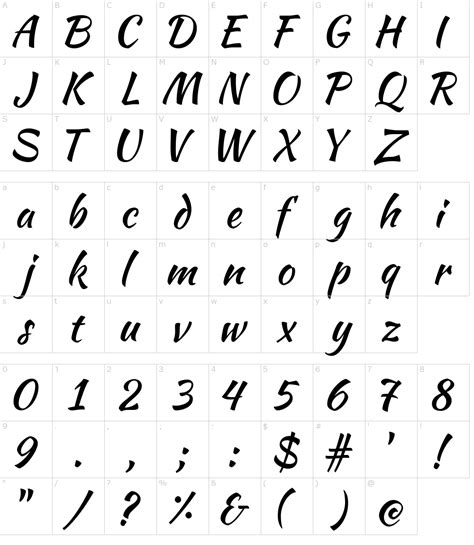
Eubie Script Font Download / 45 Free Script Fonts To Download Now • A Subtle Revelry - You can use these fonts to create custom styles.. Download the font eubie script and start using it in your projects today. Similar free fonts for eubie script. Script typefaces are based upon the varied and often fluid stroke created by handwriting, pretty much like the cursive fonts just typically more elegant. Рукописные шрифты handwritten, script fonts. Download hipster script pro font family barracuda script™ font download;
Font name newest most downloads. Some scripts are more formal like elegant calligraphy, while others are casual like cursive handwriting. They are widely used for text to give expressive or personal touch. If you are looking for professional script fonts with good kerning, alternates, broad character support, have a look at script fonts at myfonts.com. Download brush script mt font for windows.
Favela font download hide show add to favorite download. They are organized into highly regular formal types similar to cursive writing and looser, more casual scripts. Similar free fonts for eubie script. Download hipster script pro font family barracuda script™ font download; Google fonts now supports variable fonts. Some scripts are more formal like elegant calligraphy, while others are casual like cursive handwriting. Archive of freely downloadable fonts. Ouvality script | a stylish signature script font.
Script typefaces are based upon the varied and often fluid stroke created by handwriting, pretty much like the cursive fonts just typically more elegant. Google fonts now supports variable fonts. Some scripts are more formal like elegant calligraphy, while others are casual like cursive handwriting. They are widely used for text to give expressive or personal touch. Ouvality script | a stylish signature script font. Originally announced as globe script. If you are looking for professional script fonts with good kerning, alternates, broad character support, have a look at script fonts at myfonts.com. Download the font eubie script and start using it in your projects today. Most fonts on this site are freeware, some are shareware or linkware. Script font is a broad style that refers to any typeface that looks like it was drawn by hand. Similar free fonts for eubie script. Download brush script mt font for windows. Archive of freely downloadable fonts.
Rebli this typeface calligraphy fonts comes with upper and lowercase characters and numerals. Most fonts on this site are freeware, some are shareware or linkware. If you are looking for professional script fonts with good kerning, alternates, broad character support, have a look at script fonts at myfonts.com. Download brush script mt font for windows. Archive of freely downloadable fonts.
If you are looking for professional script fonts with good kerning, alternates, broad character support, have a look at script fonts at myfonts.com.
Rebli this typeface calligraphy fonts comes with upper and lowercase characters and numerals. Font name newest most downloads. You can use these fonts to create custom styles. Ouvality script | a stylish signature script font. Download brush script mt font for windows. Script fonts are flowing stroke letters based upon handwriting or calligraphy. They are widely used for text to give expressive or personal touch. Most fonts on this site are freeware, some are shareware or linkware. Browse by alphabetical listing, by style, by author or by popularity. Download eubie script 1 font from the fonts master, your best source for all the fonts you'll ever need! Some scripts are more formal like elegant calligraphy, while others are casual like cursive handwriting. Favela font download hide show add to favorite download. They are organized into highly regular formal types similar to cursive writing and looser, more casual scripts.
Font name newest most downloads. Google fonts now supports variable fonts. You can use these fonts to create custom styles. Download the font eubie script and start using it in your projects today. Download eubie script 1 font from the fonts master, your best source for all the fonts you'll ever need!
Font name newest most downloads. You can use these fonts to create custom styles. Ouvality script | a stylish signature script font. Script font is a broad style that refers to any typeface that looks like it was drawn by hand. Rebli this typeface calligraphy fonts comes with upper and lowercase characters and numerals. To your logo designs, brand imagery, handwritten quotes, product packaging, merchandise & social media posts. Download brush script mt font for windows. To download free script fonts, you can take a look at our collection of script fonts.
You can use these fonts to create custom styles. Click to visit and download. They are widely used for text to give expressive or personal touch. Originally announced as globe script. Download eubie script 1 font from the fonts master, your best source for all the fonts you'll ever need! If you are looking for professional script fonts with good kerning, alternates, broad character support, have a look at script fonts at myfonts.com. Browse by alphabetical listing, by style, by author or by popularity. Download hipster script pro font family barracuda script™ font download; Рукописные шрифты handwritten, script fonts. Ouvality script | a stylish signature script font. Script typefaces are based upon the varied and often fluid stroke created by handwriting, pretty much like the cursive fonts just typically more elegant. Some scripts are more formal like elegant calligraphy, while others are casual like cursive handwriting. To your logo designs, brand imagery, handwritten quotes, product packaging, merchandise & social media posts.